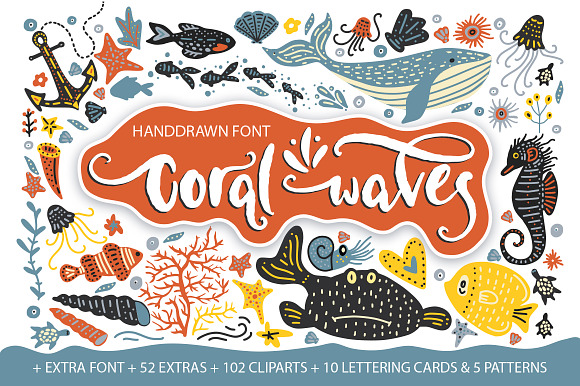
Coral waves. Font and clip arts
Coral waves. Font and clip arts is perfect for tropical resort branding, beachfront restaurant signage, ocean conservation campaigns, coastal tourism promotions, marine life educational materials, underwater photography studios, beach wedding invitations, seaside boutique identities, aquarium exhibition displays, and coastal lifestyle publications.
What makes Coral waves. Font and clip arts so exciting is its extraordinary ability to capture the fluid beauty and vibrant life of coral reef ecosystems through flowing letterforms and artistic elements that seem to dance with ocean currents and pulse with marine vitality. This aquatic typeface and graphic collection embodies the essence of underwater paradise and coastal serenity with characters and illustrations that radiate the colors, movement, and natural harmony found in pristine coral reef environments. The font and clip arts' oceanic design elements perfectly balance natural authenticity with contemporary usability, creating an indispensable marine toolkit that communicates ocean beauty, environmental consciousness, and coastal elegance, making it essential for brands celebrating marine life and coastal living.
Coral waves. Font and clip arts comes in multiple font families including Regular, Bold, Light, Flowing, Tidal, Condensed, Extended, and Oceanic variations, complemented by an extensive collection of coral reef illustrations, marine life graphics, and wave patterns. Each family member maintains the core aquatic characteristics while offering different flow levels and stylistic approaches to suit various marine and coastal design requirements.
The marine authenticity in Coral waves. Font and clip arts makes it particularly effective for coastal industries and environmental organizations where conveying genuine ocean beauty and marine conservation awareness is crucial for connecting with audiences who appreciate coral reef preservation and sustainable ocean practices. The comprehensive collection works exceptionally well across all coastal applications, from resort signage to marine education materials, maintaining consistent oceanic appeal and environmental consciousness.
Marine conservation professionals recognize how Coral waves. Font and clip arts transforms ordinary coastal communications into powerful invitations to ocean paradise and environmental stewardship. The comprehensive collection includes authentic marine symbols, coral reef patterns, and oceanic elements that enhance the overall aquatic atmosphere of any marine-focused project.
For creative professionals serving coastal tourism, marine conservation, and ocean lifestyle brands, Coral waves. Font and clip arts serves as the perfect foundation for establishing memorable visual identities that capture the essential qualities of ocean beauty, marine conservation, and coastal elegance that define successful brands celebrating the irreplaceable value of healthy coral reefs and pristine marine environments.